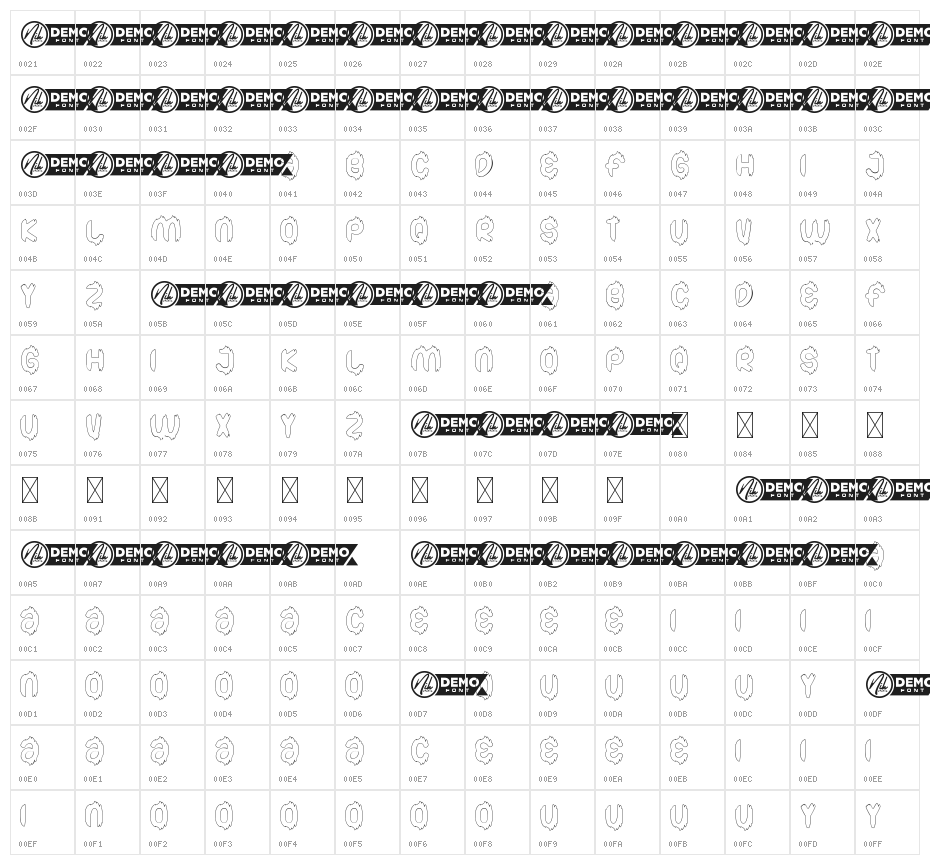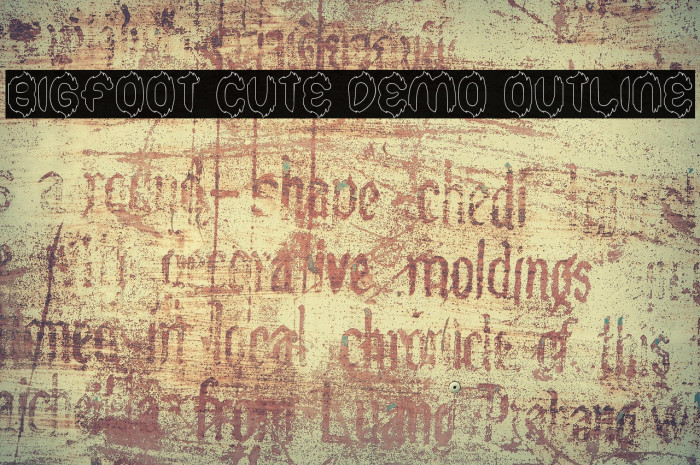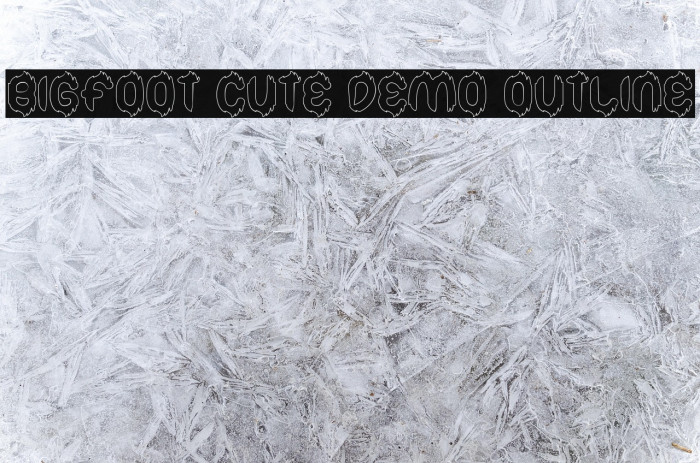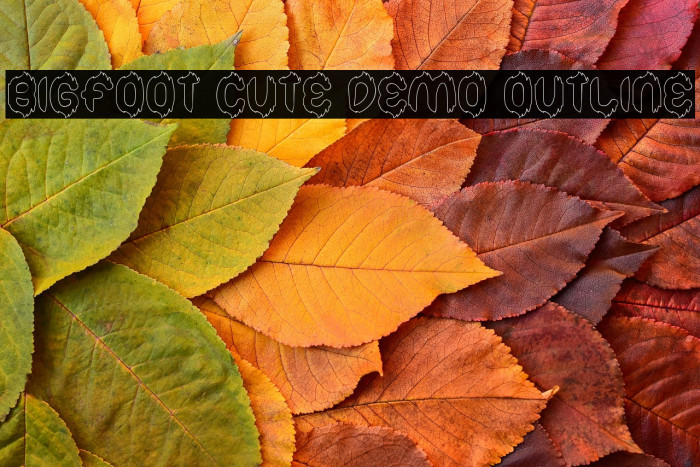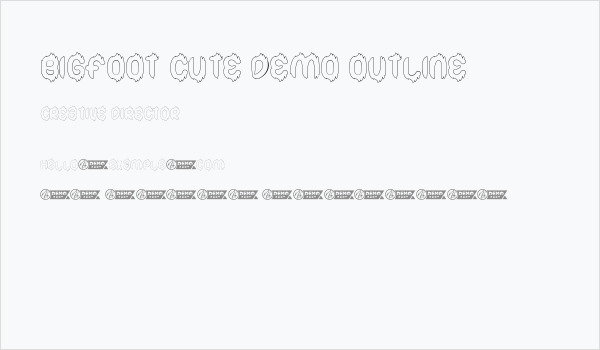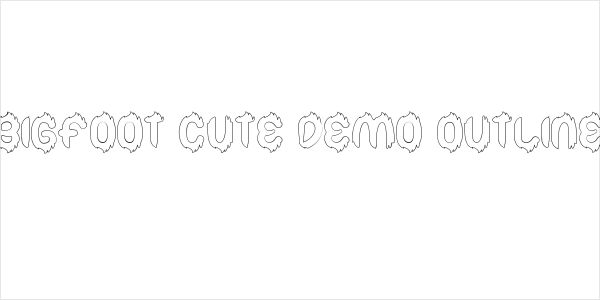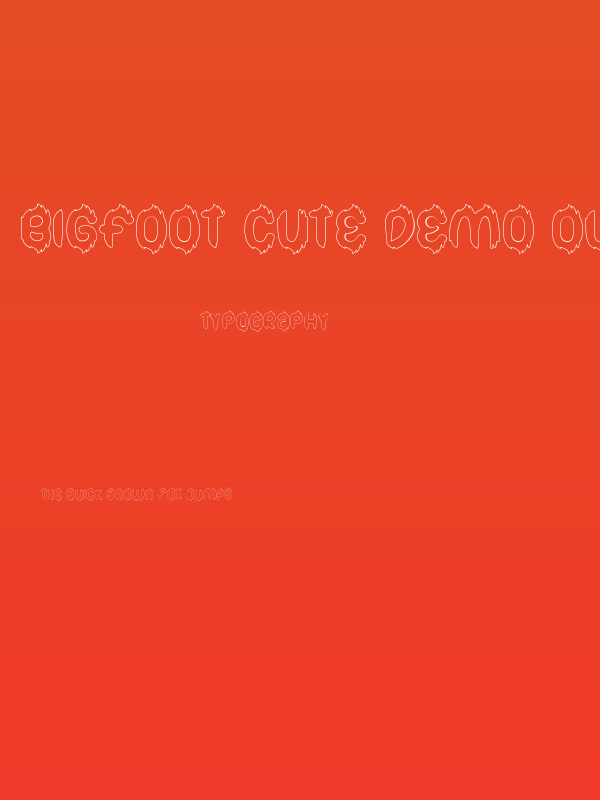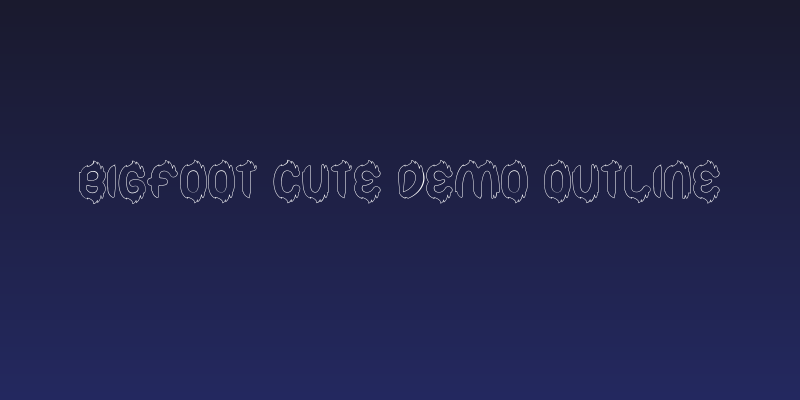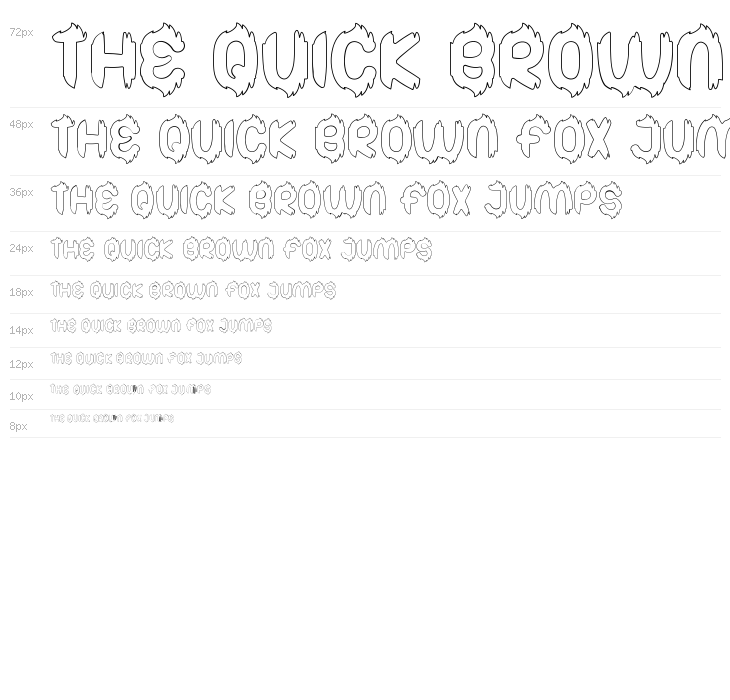
Bigfoot Cute Demo Outline Font
Bigfoot Cute Demo Outline Description
This playful and whimsical font features an outline style with a unique, furry texture that gives each character a lively and animated appearance. The uppercase and lowercase letters are designed with a consistent, bold outline that emphasizes their quirky, fun-loving nature. The font's design is reminiscent of cartoonish or fantasy themes, making it ideal for projects that require a touch of humor or creativity. The characters are evenly spaced, ensuring readability while maintaining their distinctive style. This font is perfect for creating eye-catching headlines, posters, or any design that seeks to capture a playful and imaginative spirit.
| Overall Style | Whimsical |
| Use Case | Headlines, Posters, Creative Designs |
| Proposed Projects | Ideal for children's book covers, playful posters, fantasy-themed invitations, or cartoon graphics. |